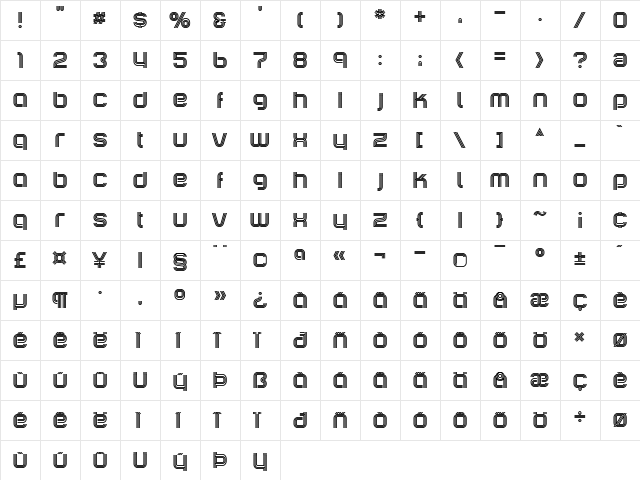
Incopins Clusters B Regular
| Foundry | Peter Wiegel |
| Designer | Peter Wiegel |
Design Context for Incopins Clusters B Typeface
Incopins Clusters B is a composed and adaptable typeface that performs quietly and consistently across a wide range of design contexts.